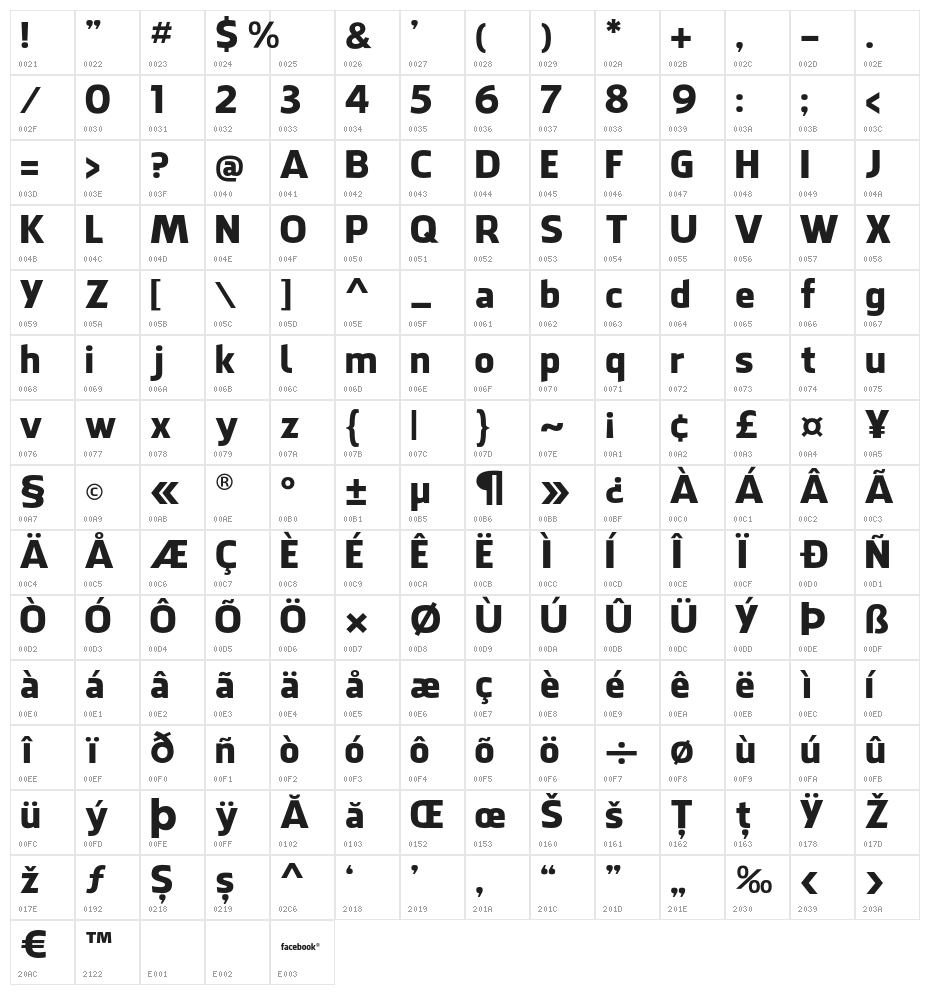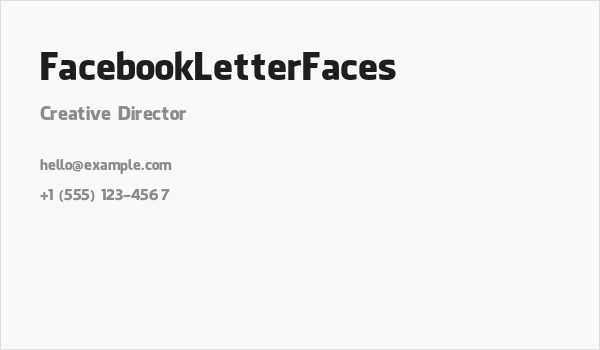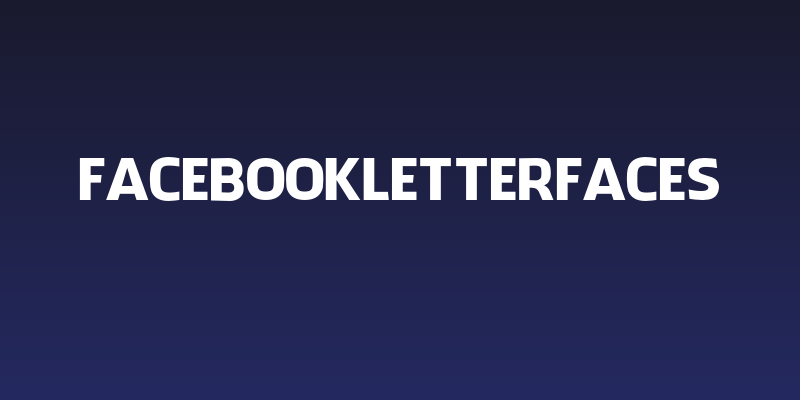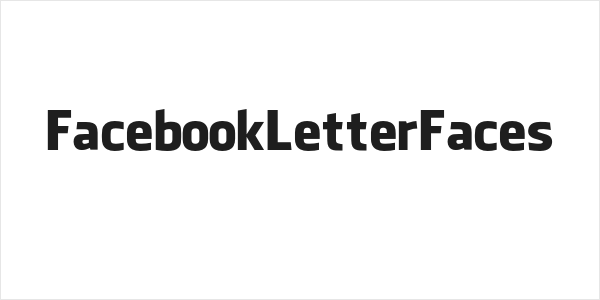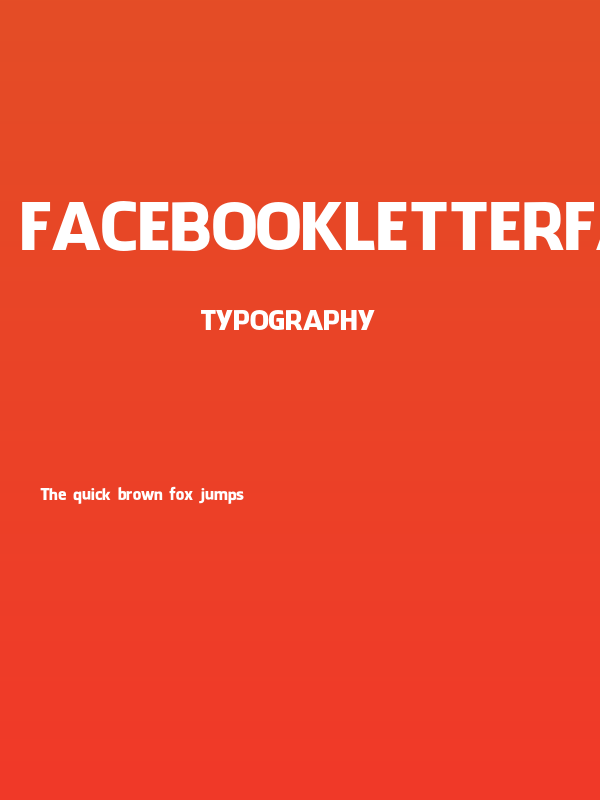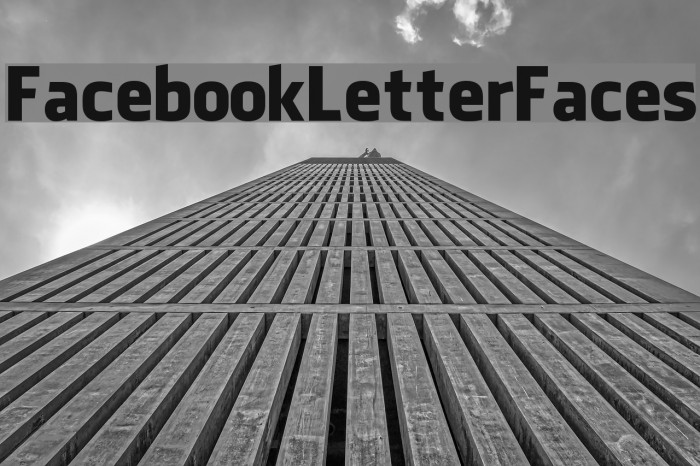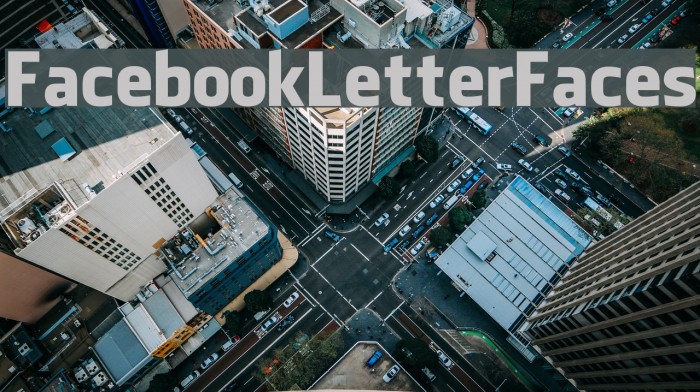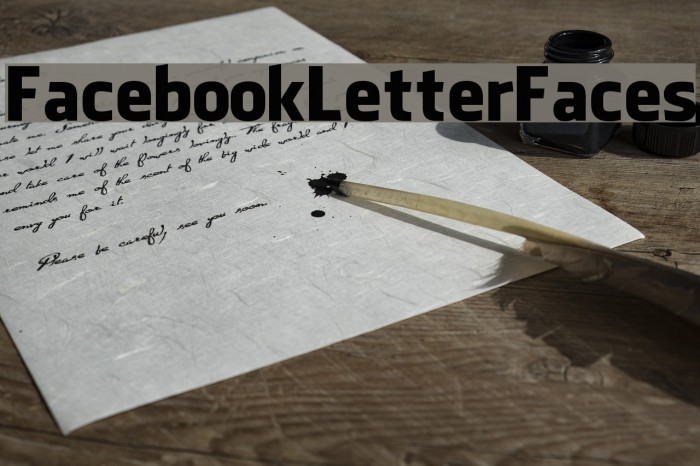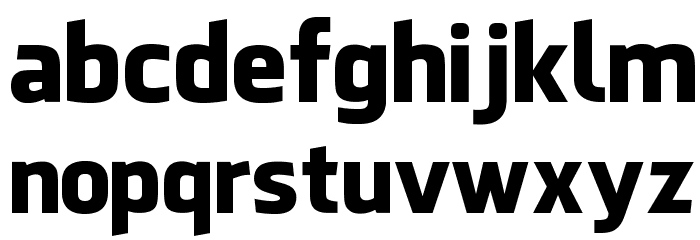
FacebookLetterFaces Font
FacebookLetterFaces Description
This font features a bold and modern sans-serif style with clean, geometric lines. The uppercase letters are uniform in height, providing a strong and cohesive appearance. The lowercase letters maintain a consistent weight, contributing to the font's readability and versatility. The numerals are clear and distinct, making them suitable for various applications. Special characters are well-defined, adding to the font's comprehensive utility. The overall design is sleek and contemporary, ideal for digital and print media.